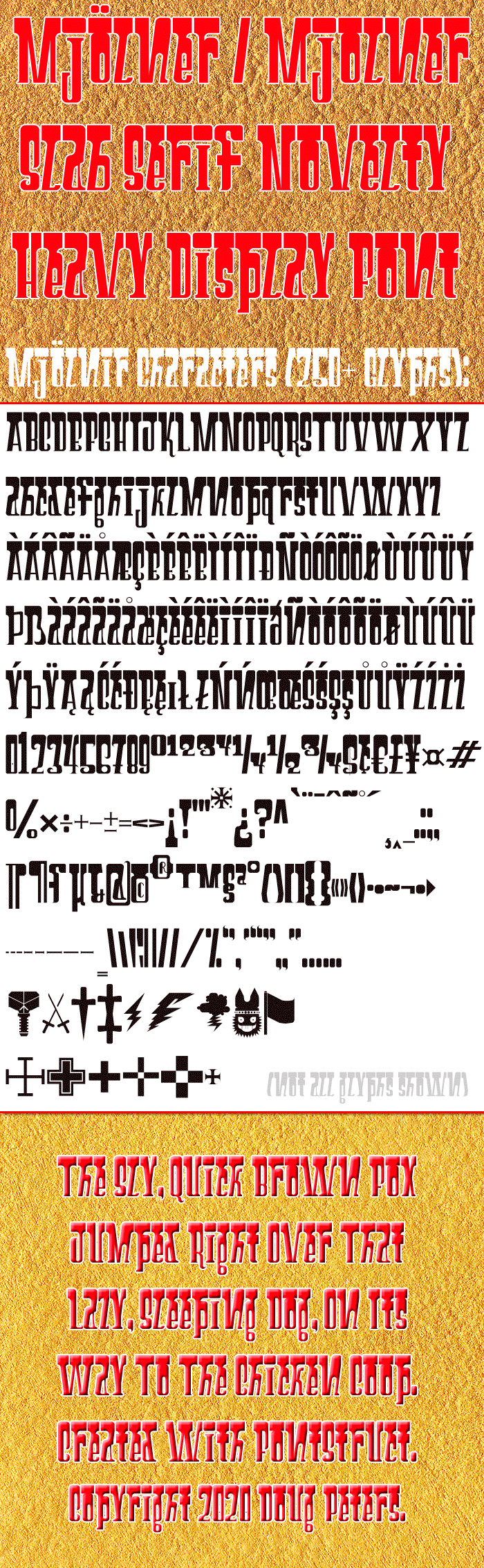
Mjölnir is the name of Thor's hammer (God of War), hence, I tried to make the letters resemble some sort of new fangled hammer.
Polish support: Ą, ą, Ć, ć, Ę, ę, Ł, ł, Ń, ń, Ś, ś, Ź, ź, Ż, ż.
Yes, I know, I am going to be criticized for my lack of continuity.  Consistency is key, after all.  To those I say, "Embrace Chaos."
Not KAOS, mind you, KAOS is the evil organization looking to overthrow world leaders and claim the world as their own.  Luckily, there is Control.
With control, embrace this chaos.  ;)
All that work and I see I forgot the S/s with cedilla, which is what I saw all over Poland when I visited. Fixed.
Fresh and surprising approach, with 70s style flavour. Well done.